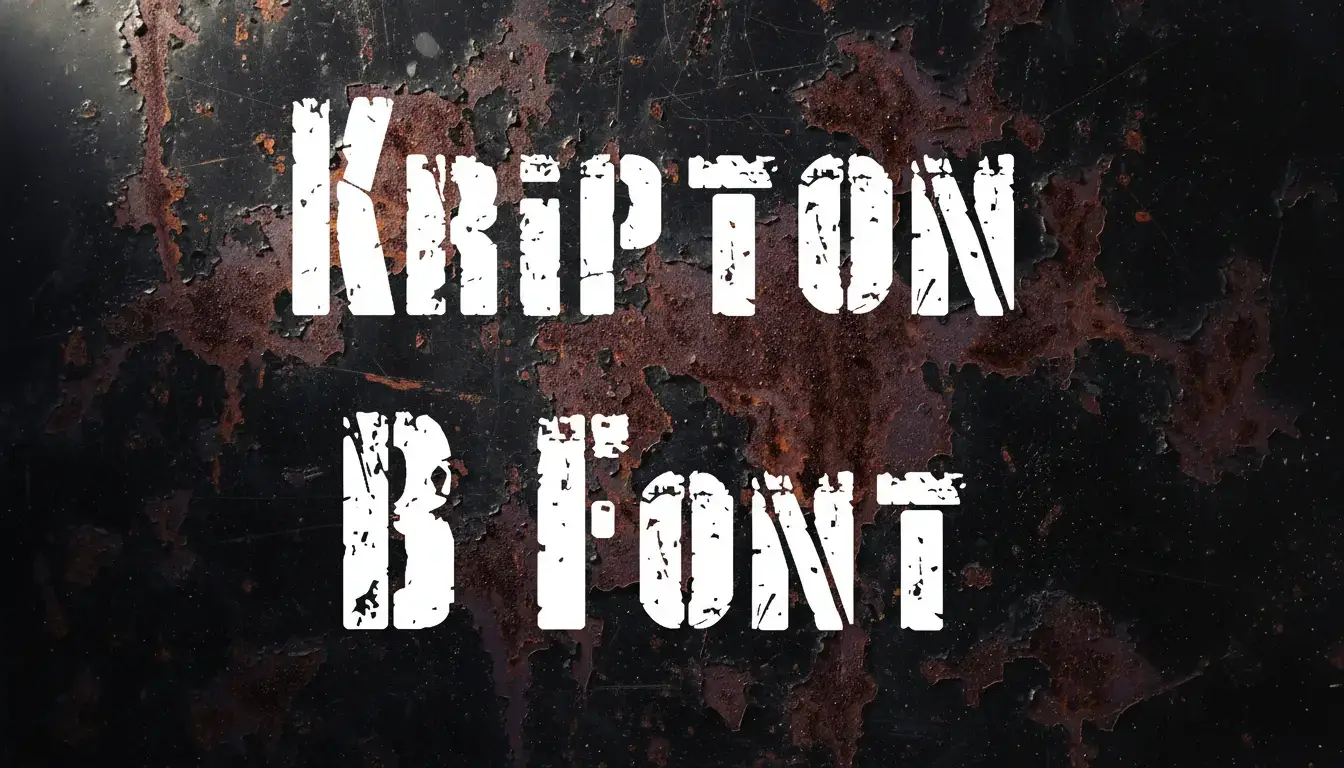
Kripton B Font
Kripton B
Kripton B is a fancy font. Bold and full of character, it's built to stand out rather than blend in. You can download it for free and test it with your own words in the preview above.
What You Can Type With Kripton B
You get every letter from A to Z in both cases and all the numbers from 0 to 9, which means Kripton B can handle full sentences, dates and prices. Everyday marks like & and $ are there too. There are no accented letters like é or ñ, so it's best kept to English text.
Where Kripton B Works Best
Kripton B is a natural fit for posters, logos and eye-catching headlines. Use it for one standout word or headline and let simpler fonts handle the rest.
Does Kripton B support accented letters?
No. Kripton B has no accented letters such as é, ñ or ü, so it's best for English text.